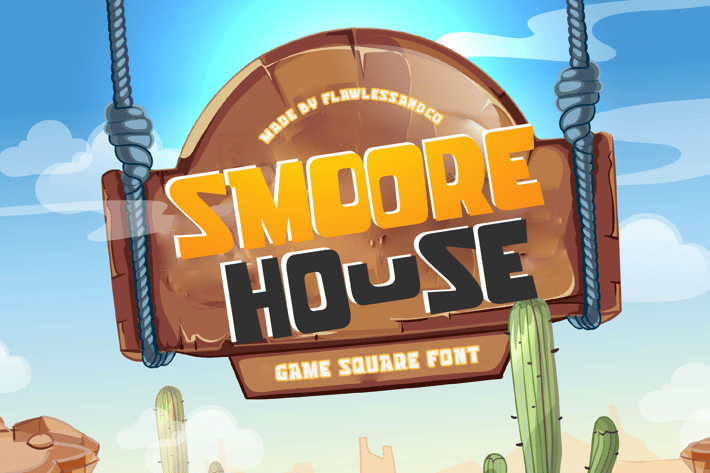
Smoore House - Game Font
Introducing "Smoore House" a game square font. Enter the pixelated realm of gaming with "Smoore House," a bold and dynamic square font designed to elevate your gaming experience to new heights. With its sharp edges and futuristic vibe, Smoore House brings a touch of excitement and energy to every gaming interface.
Uppercase alphabet A-Z
Lowercase alphabet a-z
Numbers 0-9
Some punctuation